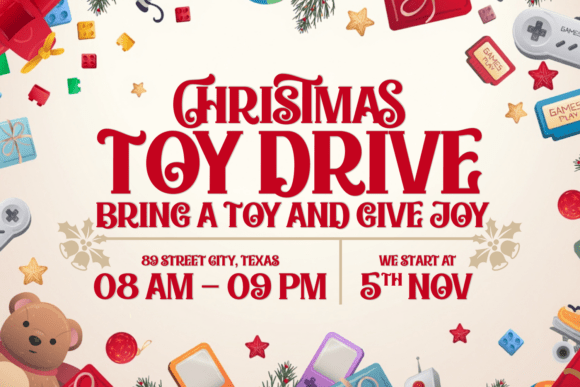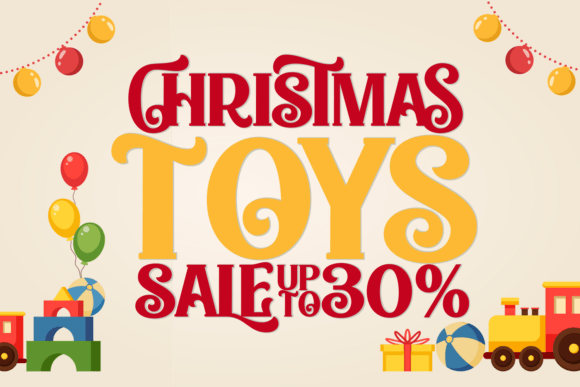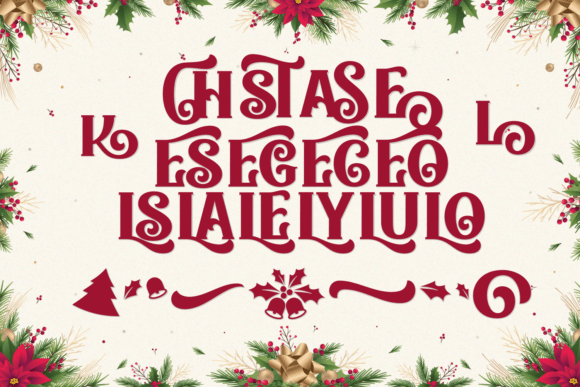
Unwrap the Magic of Desire Christmas Font: A Luxurious Typeface for the Holiday Season
As the holiday season approaches, designers and crafters are on the lookout for the perfect typography to capture the essence of Christmas. Look no further than the “Desire Christmas” font, a stunning typeface that combines traditional charm with modern craftsmanship. This beautiful font is designed to evoke feelings of celebration, joy, and classic holiday spirit, making it the perfect addition to any design project.
The Perfect Blend of Traditional and Modern Elements
The “Desire Christmas” font boasts a unique blend of traditional and modern elements, making it a standout in the world of typography. Its flowing swashes, bold serifs, and ornate curves create a luxurious and cheerful display typeface that instantly conveys the warmth of the Christmas season. Whether you’re designing a holiday card, gift tag, or festive advertisement, this font is sure to add a touch of magic to your project.
Key Features of Desire Christmas Font
- Flowing Swashes: The font features beautiful, flowing swashes that add a touch of elegance and sophistication to any design.
- Bold Serifs: The bold serifs provide a strong and sturdy foundation for the font, making it perfect for headlines and titles.
- Ornate Curves: The ornate curves add a touch of whimsy and playfulness to the font, making it perfect for festive and holiday designs.
- Luxurious and Cheerful: The font’s luxurious and cheerful design makes it perfect for designers seeking to create high-end holiday designs.
Why Choose Desire Christmas Font?
So why choose the “Desire Christmas” font for your holiday design projects? Here are just a few reasons:
- Unique and Eye-Catching: The font’s unique blend of traditional and modern elements makes it a standout in the world of typography.
- Perfect for Holiday Designs: The font’s festive and cheerful design makes it perfect for holiday designs, from cards and gift tags to advertisements and social media graphics.
- High-Quality Design: The font is designed with high-quality craftsmanship in mind, ensuring that it will look great in any design project.
- Easy to Use: The font is easy to use and can be easily integrated into any design project, making it perfect for designers of all skill levels.
Tips for Using Desire Christmas Font
Here are a few tips for using the “Desire Christmas” font in your holiday design projects:
- Use it as a Headline Font: The font’s bold serifs and ornate curves make it perfect for use as a headline font.
- Add Swashes for Elegance: Add swashes to your design to give it a touch of elegance and sophistication.
- Experiment with Colors: Experiment with different colors to find the perfect combination for your holiday design.
- Pair it with Other Fonts: Pair the “Desire Christmas” font with other fonts to create a unique and eye-catching design.
The “Desire Christmas” font is a luxurious and cheerful typeface that is perfect for designers seeking to capture the essence of the holiday season. With its unique blend of traditional and modern elements, flowing swashes, bold serifs, and ornate curves, this font is sure to add a touch of magic to any design project. Whether you’re designing a holiday card, gift tag, or festive advertisement, the “Desire Christmas” font is the perfect choice.